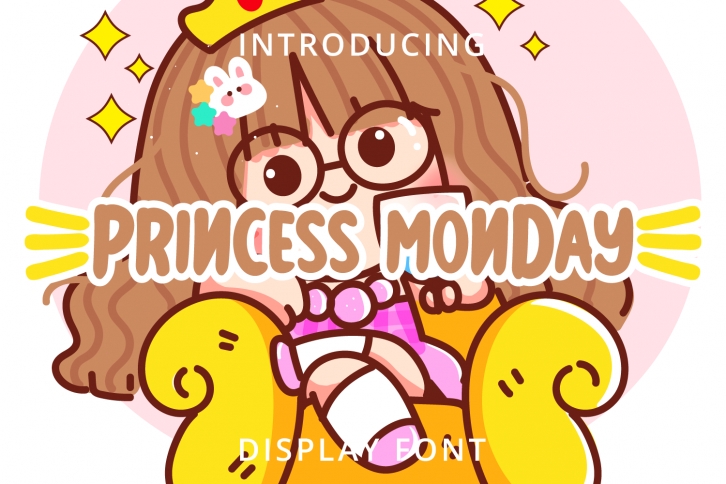
Princess Monday is a fun, colorful and friendly display font. It embodies playfulness and authenticity and is the perfect choice for any children activity or school project.